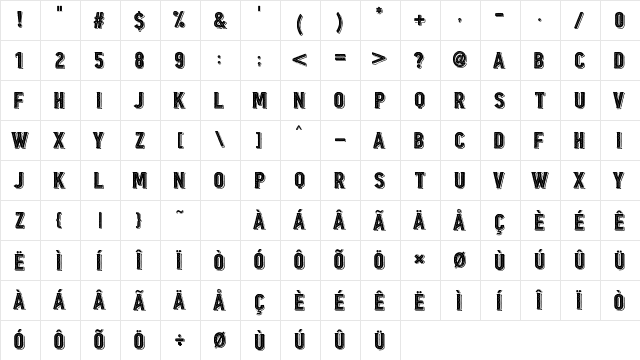
Borgens Burlesque Regular
Design Context for Borgens Burlesque Typeface
Borgens Burlesque takes a measured approach to typography — its balanced proportions and neutral character make it a reliable workhorse for both digital and print work.
Pro Tip: Use Borgens Burlesque in both headline and body roles to test its range before committing to a single application.